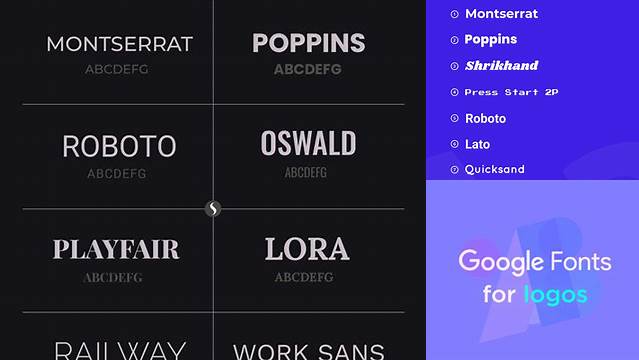
Best Google Fonts For Logos: Font Guide
Hey guys! Choosing the right font for your logo is super important. It’s like the first impression your brand makes, you know? Think about some famous logos – Coca-Cola’s swirly script or Google’s simple, clean lettering. The font plays a HUGE role in how recognizable and memorable they are. When you're diving into logo design, Google Fonts is a treasure trove. It’s packed with thousands of fonts, and the best part? It's free! But with so many options, finding the perfect google fonts logo fonts can feel a little overwhelming. That's where this guide comes in! We're going to break down some of the best Google Fonts for logos, explore different font pairings, and give you some tips on how to make your logo stand out. So, let’s jump in and find the perfect font to represent your brand!
Choosing the Right Google Font for Your Logo
Choosing the right font is like picking the right outfit for a party – it needs to match the vibe! When it comes to logos, your font does more than just spell out your company name; it communicates your brand’s personality. Are you sophisticated and elegant? Fun and playful? Modern and techy? The font needs to reflect that. The google fonts logo fonts world is vast, and your choice can make or break your brand’s first impression. Think about the message you want to send. A bold, sans-serif font might shout confidence and innovation, while a delicate script font could whisper elegance and tradition. Before you even start browsing Google Fonts, take some time to nail down your brand’s identity. What are your core values? What’s your target audience like? Once you have a clear picture of your brand, you can start exploring fonts that align with that identity. Remember, your logo is the face of your business, so choosing the right font is crucial.
Best Sans-Serif Fonts for Logos
Sans-serif fonts are the cool kids on the block – they're clean, modern, and super versatile. They're like the jeans and t-shirt of the font world, you know? No fuss, just classic style. When you're looking for google fonts logo fonts that are readable and make a statement, sans-serifs are a great place to start. These fonts ditch the little “feet” (serifs) that you see on some other fonts, giving them a streamlined look. This makes them great for logos, especially if you want to convey a sense of innovation, simplicity, or strength. Some popular sans-serif fonts include Montserrat, Open Sans, and Lato. Montserrat is like the friendly neighbor – approachable and stylish. Open Sans is the reliable friend, always clear and easy to read. And Lato? It’s the sophisticated one, with a modern yet warm feel. When choosing a sans-serif for your logo, consider your brand’s personality. Do you want to look cutting-edge or classic? Bold or understated? There’s a sans-serif out there for every brand, so let’s find the perfect one for you!
Top Serif Fonts for Logo Design
Serif fonts are like the classic suits of the font world – timeless, elegant, and full of character. They’ve got those little “feet” (serifs) at the end of the strokes, which give them a more traditional and refined look. When you're thinking about google fonts logo fonts that exude sophistication and history, serif fonts are your go-to. Think of brands like Times New Roman or Georgia – they’ve got a certain gravitas, right? But serif fonts aren’t just for old-school brands. They can also bring a touch of class and credibility to modern businesses. Some popular serif fonts on Google Fonts include Playfair Display, a beautiful and dramatic option, and Merriweather, which is super readable and friendly. Then there’s Arvo, a geometric serif that feels both modern and sturdy. When you’re picking a serif font for your logo, think about the story you want to tell. Do you want to convey trust and reliability? Or maybe a sense of luxury and tradition? A well-chosen serif font can add a lot of personality and depth to your logo.
Script and Handwritten Fonts for Logos
Script and handwritten fonts are like the artists of the font world – they're expressive, unique, and full of personality. They mimic the flow of handwriting, which can give your logo a personal and approachable feel. If you're looking for google fonts logo fonts that stand out from the crowd, a script or handwritten font might be just the ticket. These fonts can range from elegant and formal to playful and casual, so there’s something for every brand. Think about brands like Coca-Cola – their iconic script logo is instantly recognizable and conveys a sense of heritage and tradition. On Google Fonts, some great script options include Pacifico, a fun and retro choice, and Great Vibes, which is elegant and flowing. For a more handwritten feel, check out Permanent Marker, which is bold and energetic. When choosing a script or handwritten font, it’s important to consider readability. While these fonts can be beautiful, they can also be tricky to read if they’re too ornate or stylized. Make sure your logo is clear and legible, even at a small size. A well-chosen script or handwritten font can add a touch of warmth and authenticity to your logo, making your brand feel more human and relatable.
Font Pairings: Combining Google Fonts for Logos
Font pairings are like the power couples of the design world – when you get them right, they’re unstoppable! Combining different fonts in your logo can add depth and visual interest, but it’s important to choose fonts that complement each other. Think of it like this: one font is the star of the show, and the other is the supporting actor. They need to work together to create a cohesive and harmonious look. When exploring google fonts logo fonts, the possibilities for pairings are endless. A classic combination is pairing a serif font with a sans-serif font. For example, you could use Playfair Display (a serif) for your brand name and Montserrat (a sans-serif) for your tagline. This creates a nice contrast between the elegant and the modern. Another option is to pair two sans-serif fonts with different weights or styles. For example, you could use Montserrat Bold for your brand name and Open Sans Regular for your tagline. The key to successful font pairings is balance. You want to create contrast, but you also want to make sure the fonts work well together. Avoid pairing fonts that are too similar, as this can look unintentional. And be careful not to use too many fonts – sticking to two or three fonts will keep your logo clean and professional.
How to Use Google Fonts in Your Logo Design
Examples of Logos Using Google Fonts
Sometimes, the best way to learn is by seeing examples, right? It's like looking at a menu before you order – you get a better idea of what you’re in for! When it comes to google fonts logo fonts, there are tons of inspiring examples out there. Seeing how other brands have used Google Fonts in their logos can spark your creativity and help you narrow down your choices. Think about companies you admire – what fonts do they use? What message do their logos convey? You might be surprised to find that many brands use Google Fonts in their logos, from small startups to big corporations. For example, you might see a tech company using a clean, sans-serif font like Roboto to project a modern and innovative image. Or you might see a boutique brand using a script font like Lobster to create a more personal and hand-crafted feel. When you’re looking at logo examples, pay attention to how the font is used in combination with other design elements, such as colors and shapes. Does the font complement the overall aesthetic? Is it legible and memorable? By studying successful logo designs, you can gain a better understanding of how to use Google Fonts effectively in your own logo.
The Importance of Font Legibility in Logo Design
Let’s talk about something super crucial: legibility. It's like making sure everyone can understand your accent – you want to be clear, right? When it comes to google fonts logo fonts, legibility is non-negotiable. Your logo could be the most beautiful design in the world, but if people can’t read it, it’s not doing its job. Think about it: your logo is often the first thing people see, whether it’s on your website, your business cards, or your social media profiles. If your font is too fancy or too small, people might not be able to make out your brand name, and you’ll miss out on a valuable opportunity to make a lasting impression. So, how do you ensure your logo is legible? First, choose fonts that are clear and easy to read, even at small sizes. Avoid fonts with overly intricate details or thin strokes, as these can get lost or blurry. Second, pay attention to kerning and tracking – that’s the space between the letters. Too little space, and your letters will look cramped; too much space, and they’ll look disconnected. Finally, consider the contrast between your font and your background. If the colors are too similar, your logo will be hard to read. Remember, legibility is key to effective logo design, so choose your font wisely!
Color Psychology and Font Choice for Logos
Okay, let’s get a little psychological! Color psychology, that is. It’s like understanding the secret language of colors – each one whispers a different message, you know? When you're choosing google fonts logo fonts, it’s not just about the shape of the letters; it’s also about the colors you use. Colors can evoke emotions and associations, so it’s important to choose colors that align with your brand’s personality and message. Think about it: red is often associated with passion and excitement, while blue conveys trust and stability. Green might suggest growth and nature, while yellow can evoke happiness and optimism. But how does this relate to font choice? Well, the color of your font can either enhance or detract from the message your font is sending. For example, a bold, sans-serif font in a bright red color might scream energy and innovation. But that same font in a muted gray might feel more understated and professional. Similarly, a delicate script font in a soft pink might convey femininity and elegance, while the same font in a dark purple might feel more mysterious and sophisticated. When you’re designing your logo, think about the colors you’re using and how they interact with your font choice. What emotions do you want to evoke? What message do you want to send? By understanding color psychology, you can create a logo that truly resonates with your audience.
Final Thoughts: Choosing the Perfect Google Font for Your Logo
Okay guys, we've reached the finish line! It’s like the grand finale of a fireworks show, bringing everything together in a dazzling display. When you’re hunting for the perfect google fonts logo fonts, it can feel like a marathon, but hopefully, this guide has given you some helpful tools and insights. So, what are the key takeaways? First, remember that your logo font is a crucial part of your brand identity. It’s the voice of your brand, communicating your personality and values to the world. Second, take the time to understand font psychology and how different font styles evoke different emotions and associations. Third, consider legibility and scalability. Your logo font needs to be readable in all contexts, from a tiny mobile screen to a large billboard. Fourth, don’t be afraid to experiment with font pairings. Combining different fonts can add depth and visual interest to your logo. Fifth, create a brand style guide to ensure consistency in your font usage. Finally, stay informed about typography trends, but don’t sacrifice timelessness for trendiness. Choosing the perfect Google Font for your logo is a journey, but it’s a journey that’s well worth taking. With the right font, your logo can become a powerful symbol of your brand, helping you to connect with your audience and achieve your business goals.